What Is The Best Font For Adhd?
Because there is only one company and reading method called Bionic Reading®. However, if you pick a font that is easy for you to read, you don’t have to . Learning is a very human desire, and reading is one of the best ways to learn things and imagine new worlds. Century Gothic. These specific fonts include those with increased spacing or unique designs like .Bionic Reading® — You are unique. However, some . This means that its features can instead be modified on a sliding scale, creating many possible variations.
ADHD Font Revolution: Enhancing Reading Experienc
It’s called bionic reading — the first few letters are bolded, making it easier for readers to glide through text and .Two of the ways I struggle with focus most is always using white paper, and handwriting with blue or black pen or typing with the usual fonts pre-installed on most computers.
What is the Best Font for ADHD?
What Font Is Best for Adhd? When it comes to fonts for ADHD, sans-serif options like Open Sans shine.Font Selection Tips for ADHD Guidelines for Choosing Fonts.What Font Is – the best font finder tool How it Works.Hungarian designer Vatány Szabolcs has created a font and browser extension called Focus Ex to make it easier for people with ADHD to read online content.If you liked this article about the best fonts for children’s books, you should check out this article about the best fonts for accessibility.
Focus Ex is a digital reading aid for people with ADHD
Neurodivergent Font
Notes are a great way to keep track of information and maintain focus during classes, meetings, and work. I don’t think there’s any science on the subject, but I think the average sans serif font is pretty good for ease of .Designed specifically to cater to individuals with ADHD, this font allows you to glide through text with ease. You can make the font as big as is comfortable for your eyes. It’s not an eye .
Choosing the Right Fonts for ADHD: Top 15 Fonts for Better Focus
Is it easier to work with Arial or Times New Roman if you have ADHD? I am trying to develop list of small things that can help to concentrate and. Prioritize fonts with clean, uniform characters and . With the Bionic Text Font, reading becomes a breeze, captivating you and igniting a newfound love for the written word. Enhance web accessibility for ADHD users by customizing browser fonts and colors! Learn practical tips and .
How to choose the right font for ADHD content
Simplify the Start menuThats really a thing.Choosing a font for people with ADHD. You get to choose your own font, which sounds like a ‘nice to have’ feature. While many productivity tools can help you focus on .
We’re talking sans serif fonts, generous letter spacing, and more.
Fortunately, technology offers a range of tools and resources to assist in managing ADHD symptoms and optimizing productivity.Import all your bookmarks and extensions with just a single click. Similar techniques have been used to enhance the reading capabilities of those with ADHD.This font can help some readers who have ADHD and don’t have dyslexia, so it’s worth checking out.Basically, typography that’s good for everyone is good for ADHD. It filters out distractions, breaks down the text, and . Our favorites are fonts like Helvetica, Calibri, Arial, Times New Roman, Tahoma, Museo .
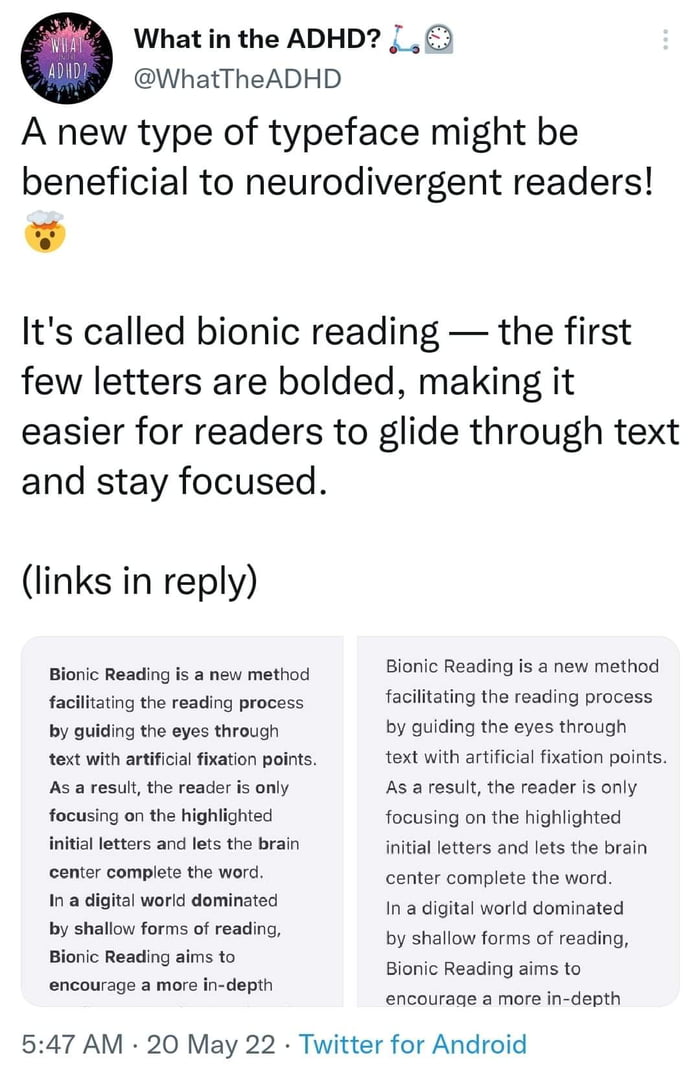
The brain gets used to almost any font quite fast (we are talking about . It is considered dyslexia-friendly because it is mostly sans-serif . In today’s fast-paced world, staying focused and organized can be a daunting task, especially for individuals with Attention Deficit Hyperactivity Disorder (ADHD). Welcome Project Extension Contact.A Font That Adapts to Your Preferences. Now, let’s dive into my personal TOP 3: My Vlog: Imagine this as a personal diary for your content – casual and intimate. These fonts have a clean design with ample spacing between letters, making it easier for individuals .Weitere Informationen
The Best Therapy for ADHD and Autism: A Comprehensive Guide
ADHD-Friendly Fonts: The Best Fonts for ADHD
General characteristics of dyslexia-friendly fonts. When choosing a font for your website, you may want to consider how people with ADHD or dyslexia will use it. We have used this font in the thumbnail designs for our YouTube videos.Understanding Autism and ADHD in Women.But a new tool, a font called “Bionic Reading,” claims to help readers—particular those with attention issues—focus on an absorb text.Best fonts for accessibility.While most regular fonts have a set number of styles for emphasis, such as bold or italic, Focus Sans is a variable font. This is due to various factors, including differences in how . HyperBold is an extensions which bolds the first half of mode words within readable text on a page. They have features that make each letter distinct, reducing the likelihood of mix-ups. Test different fonts to find what suits you best. Autism and ADHD may present differently in women, often leading to missed or delayed diagnoses. It helps with eye strain, which makes your eyes skip around less. While most regular fonts have a set number of styles for emphasis, such as bold or italic, Focus Sans is a variable font.This sans-serif font was also found to be one the best for dyslexic readers, according to the study by Ricardo Baeza-Yates. Hope this helps! Autism and ADHD are often thought of as primarily affecting boys, but recent research has shown that they can impact girls and women as well. It works best when used as part of a broader treatment plan that includes dietary adjustments, behavioral therapy, and, in some cases, medications.Some Grotesque fonts, including Acherus, Aqsa, and Quartz, are Sans Serif fonts with a simple, clear typeface, which can improve legibility for users with ADHD.
Readable by Design: The 11 Best Fonts for Dyslexia
It is a tool that helps the user access written online content more easily.
The Best ADHD Reading Fonts: 25 Unique Fonts
Hier sollte eine Beschreibung angezeigt werden, diese Seite lässt dies jedoch nicht zu. BRONSON: This one’s the showstopper – bold and attention-grabbing. For example, the simple Helvetica font is more readable than the more complex Univers typeface: Helvetica is easier for readers with dyslexia because it’s less dense and contains fewer characters . I make mine quite big. While many prefer typing their notes, many experts .It’s a whole layout that is configurable. Most neurodivergent individuals also have an affinity for fonts that resemble handwriting – . For those with ADHD, taking thorough notes is especially important to help with memory recall and can be the difference between success or failure in school exams or other time-sensitive tasks.A new type of typeface might be beneficial to neurodivergent readers! 勞. I have ADHD and a kindle, changing the font of the ebook really tranform the experience of reading for me. But reading can be painful for some, especially those with ADHD. Selecting the right font is crucial for ensuring your digital. Enjoy our font . Bionic Reading® is unique.The ADHD font is a specialized typeface designed to enhance the reading experiences of individuals, particularly those with ADHD, by making text more accessible and engaging .Fonts that are helpful for ADHD include Arial, Century Gothic, and Tahoma. We make the content accessible for people with a health condition such as dyslexia, seizures, autism, ADHD, or other cognitive disabilities. Welcome! Focus Ex is a digital reading tool, first and foremost for people suffering from ADHD.Amongst the different type of fonts [1], the ones which are used more often are two: the “serif” fonts and the “sans serif” fonts. Here are our top dyslexia-friendly fonts: What are the best dyslexia fonts? 1. There are also similar articles discussing the best fonts for neon signs, the best fonts for academic papers, the best fonts for vinyl lettering, and the best fonts for invitations.I also googled what fonts are good for ADHD: “Mono-spaced fonts, such as Consolas and Courier New, are good for neurodiverse readers since they present fewer opportunities . The bold part of the word can be large or small and that is a formatting thing, not a font/typeface thing.Additionally, if you can’t find the font, or if you don’t have software compatible with the font (it works on MS word and Google Docs I think), another little trick is to change the page color from white to light pink (or light yellow if pink isn’t your style).From the top-right corner of your screen, click on “Select this font”, and you’ll see at the bottom, “1 Family Selected” Click on “1 Family Selected” and it will open a small window; On the top-right corner of this small window, click on the download button (the red arrow), and then on “Download. Though plenty of accessible design details are in how fonts are used, there are a few common fonts that will work with a wide range of design types while still being appropriate for accessibility concerns, including serif and sans serif options.comEmpfohlen auf der Grundlage der beliebten • Feedback